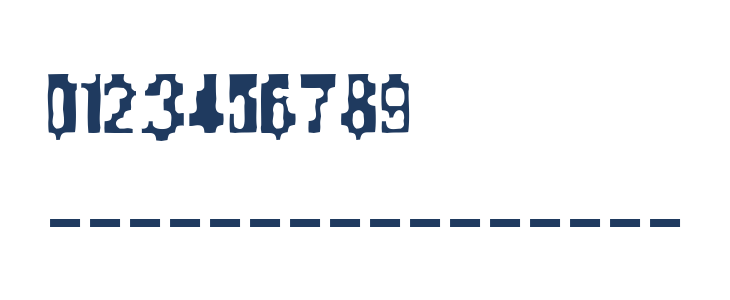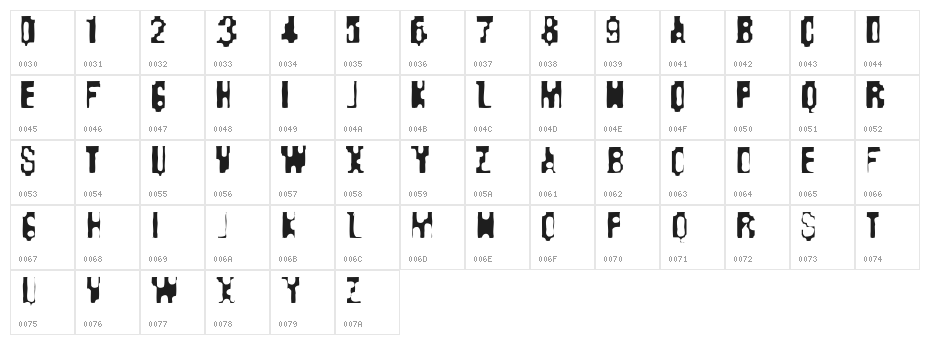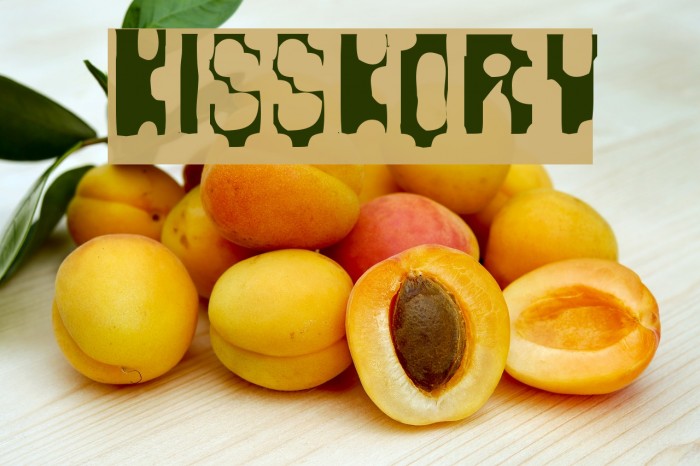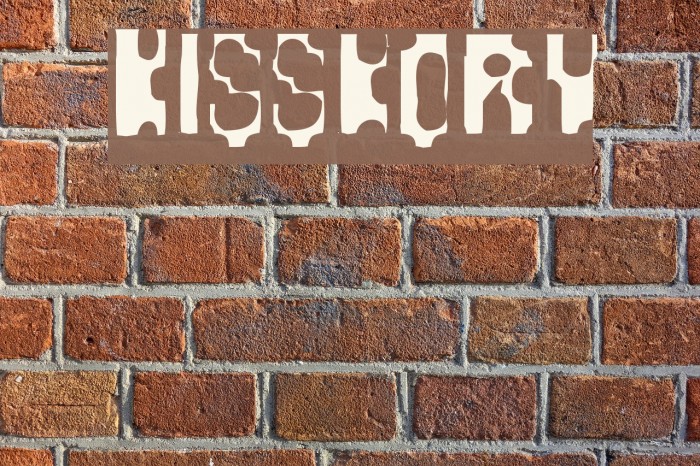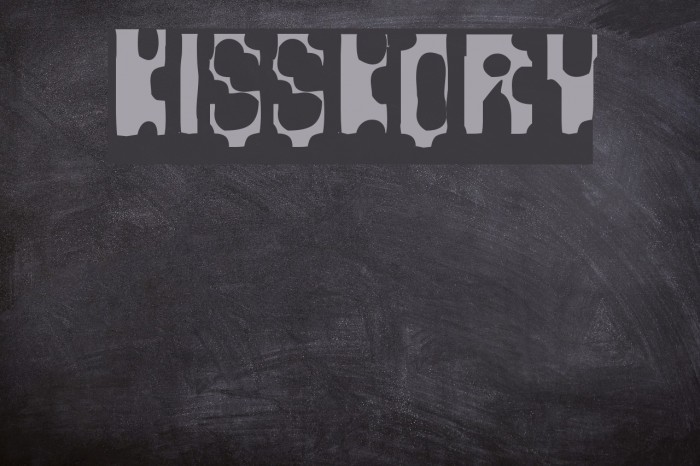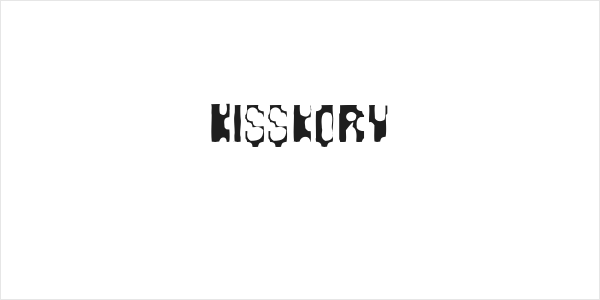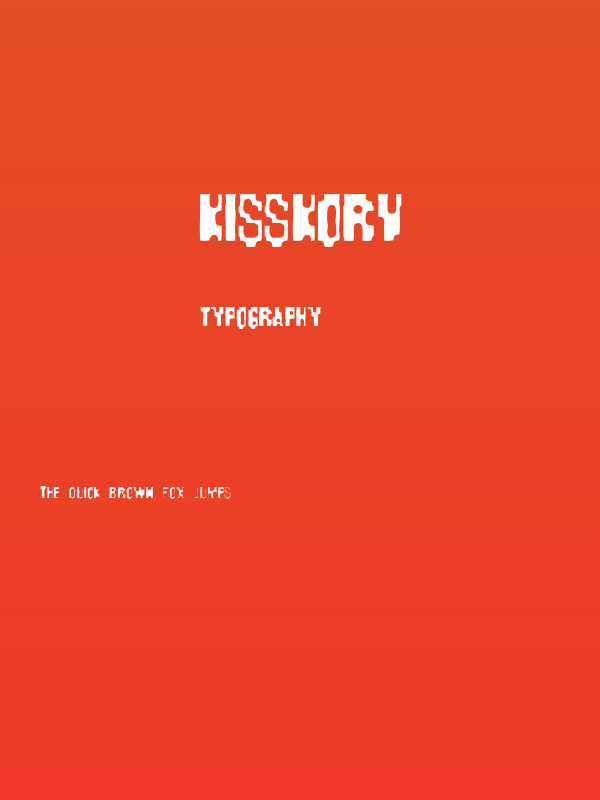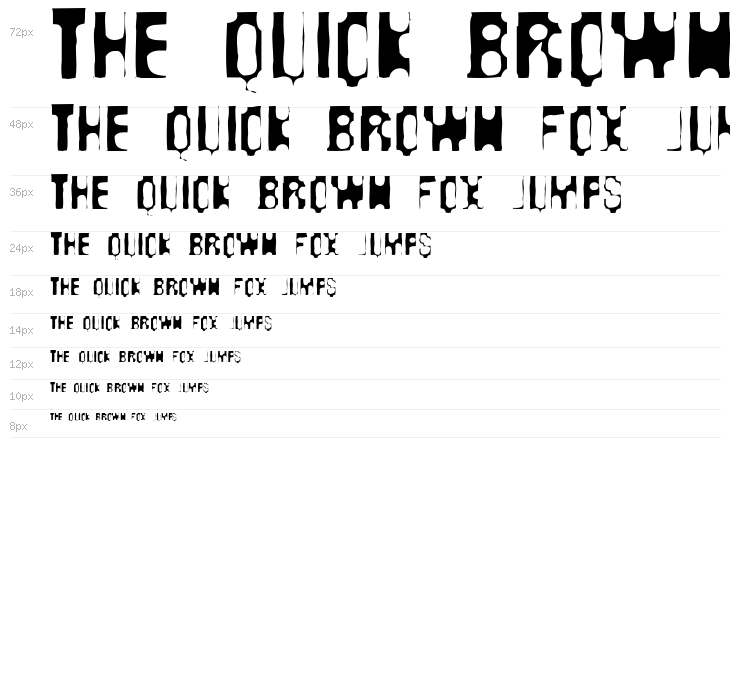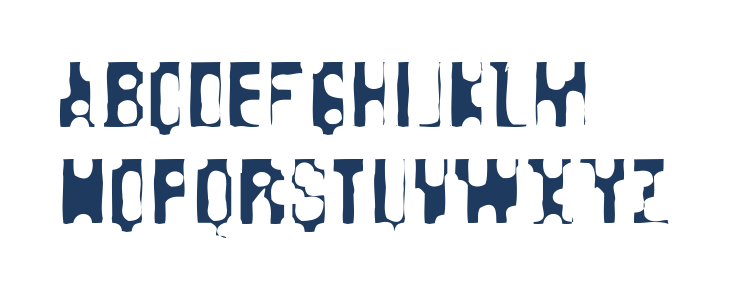
Kisskorv Font
Kisskorv Description
This font features a bold and striking design with a unique, stencil-like appearance. The characters are defined by thick, blocky strokes with cut-out sections that create a distinctive, industrial look. The uppercase letters are particularly prominent, with a uniform height and width that convey strength and stability. The numbers and special characters maintain the same bold style, ensuring consistency across all text elements. This font's design is both eye-catching and functional, making it suitable for a variety of creative applications.
| Overall Style | Industrial, Modern |
| Proposed Projects | Ideal for branding, poster design, and signage where a bold statement is needed. |